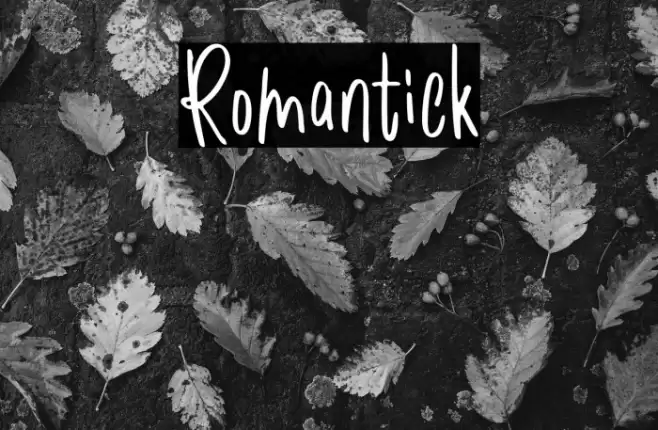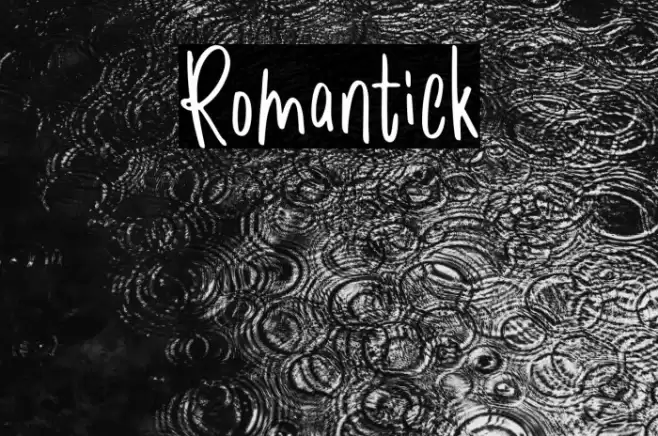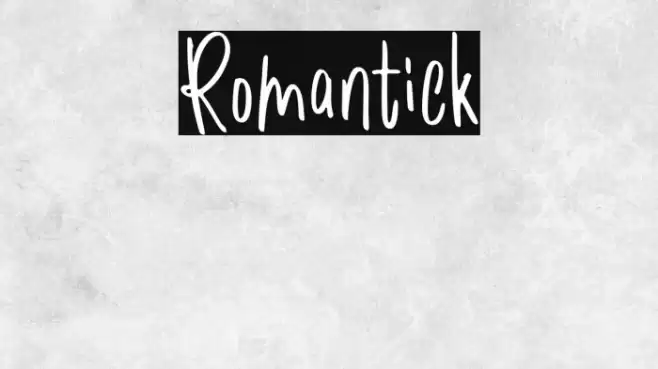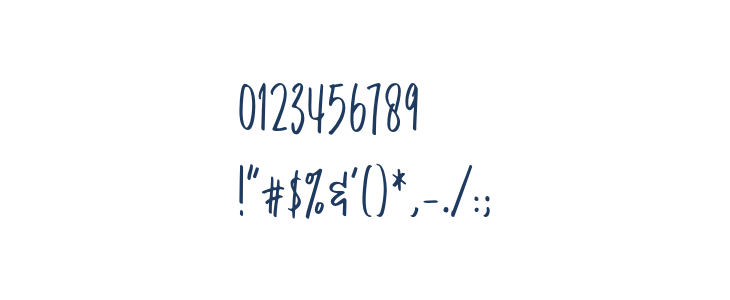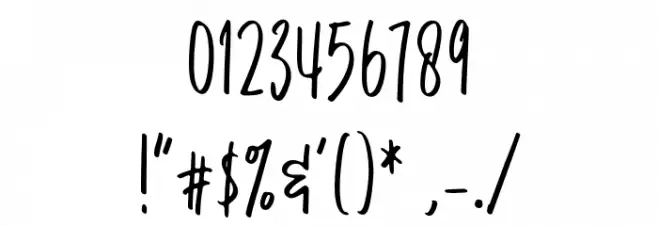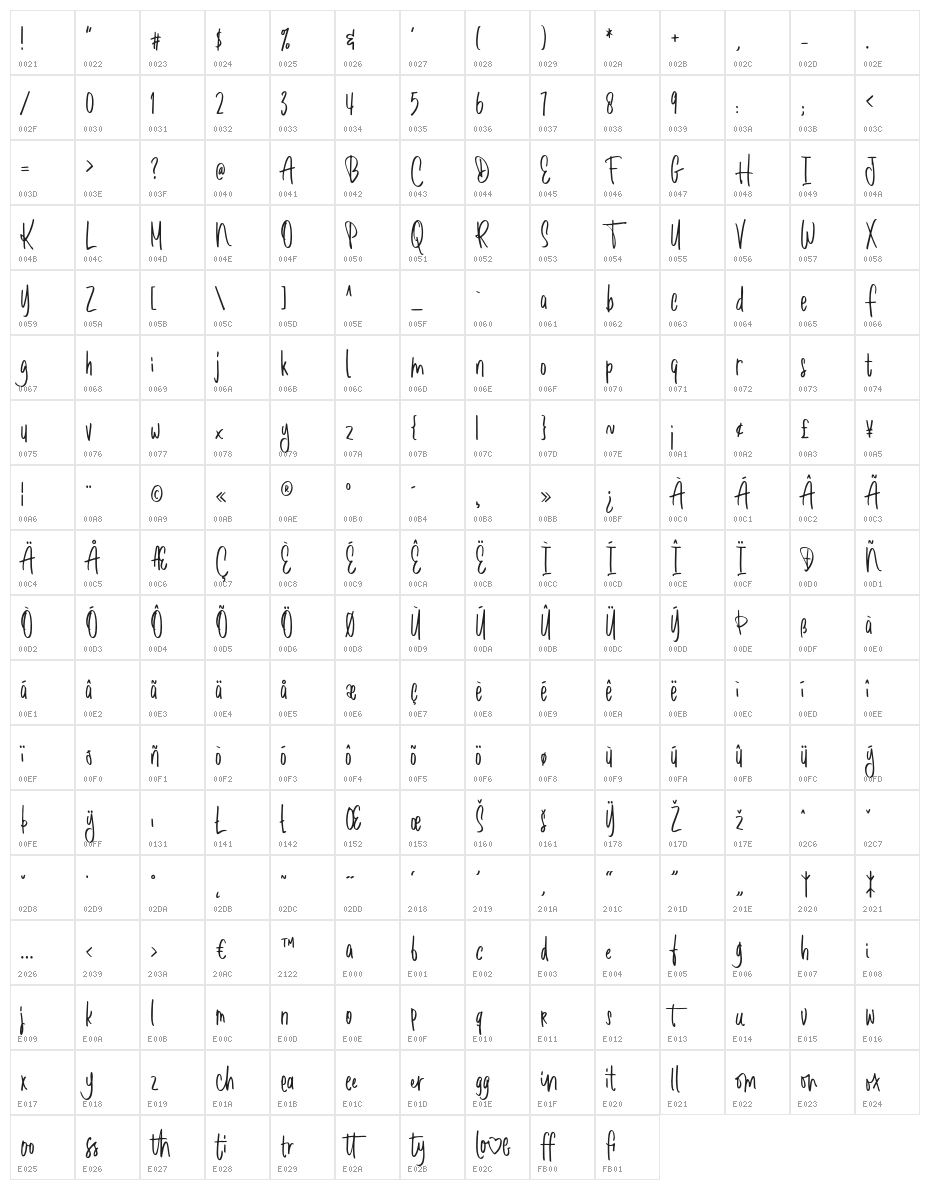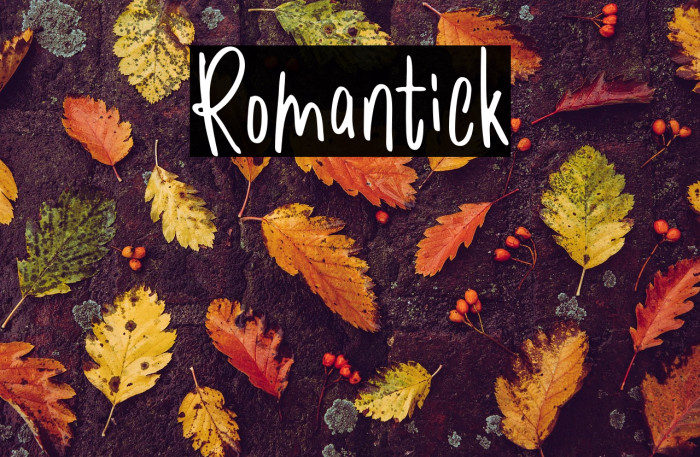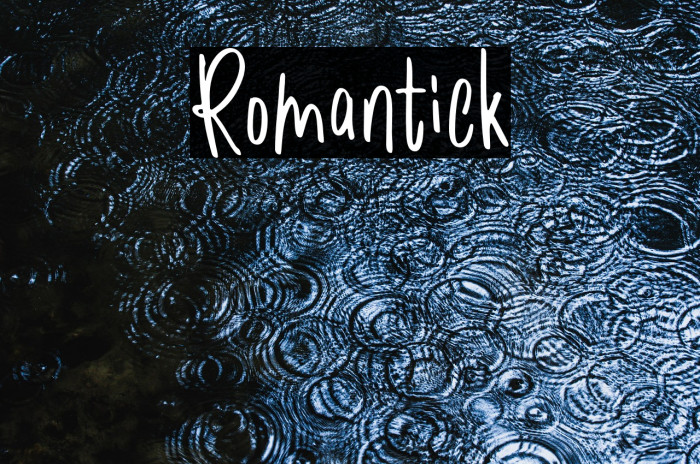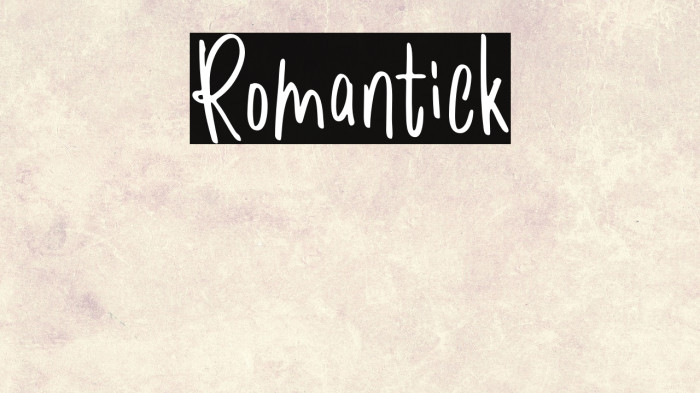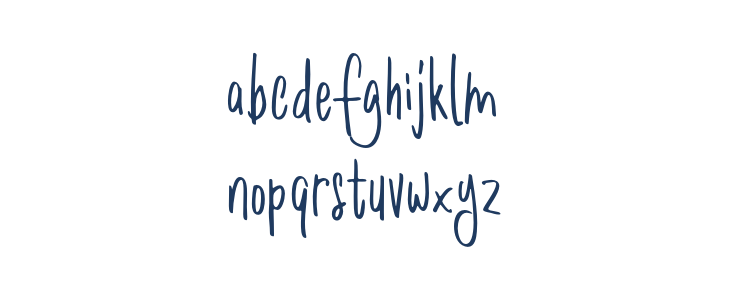
Romantick Font
Romantick Description
This font features a playful and casual handwritten style, characterized by its tall, narrow letters with a slight slant. The strokes are smooth and fluid, giving it a relaxed and informal appearance. The uppercase letters are bold and prominent, while the lowercase letters maintain a consistent flow, enhancing readability. The numbers and special characters complement the overall design, maintaining the same whimsical and approachable feel. This font is perfect for projects that require a personal touch, such as invitations, greeting cards, or social media graphics.
A playful, handwritten font with tall, narrow letters and a casual style from Regular fonts.
- Font: Romantick
- Proposed Projects: Ideal for invitations, greeting cards, social media graphics, and personal branding.
- Overall Style: Casual